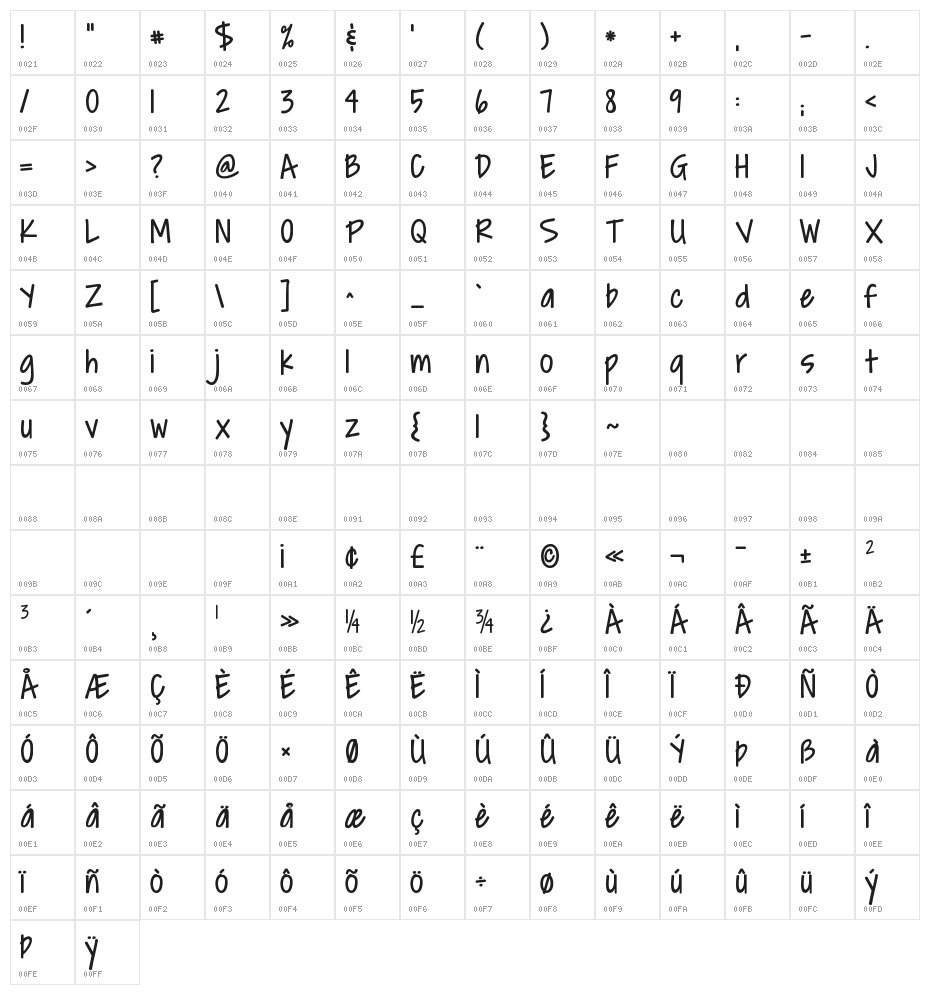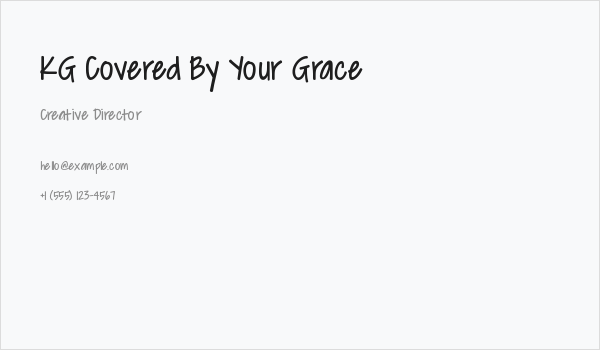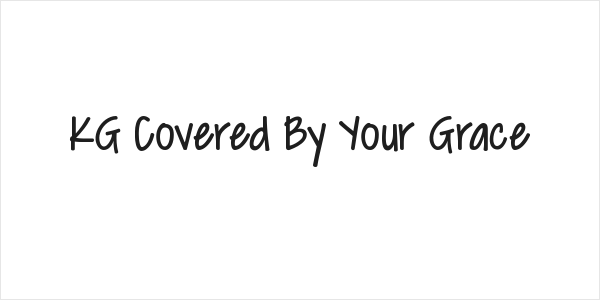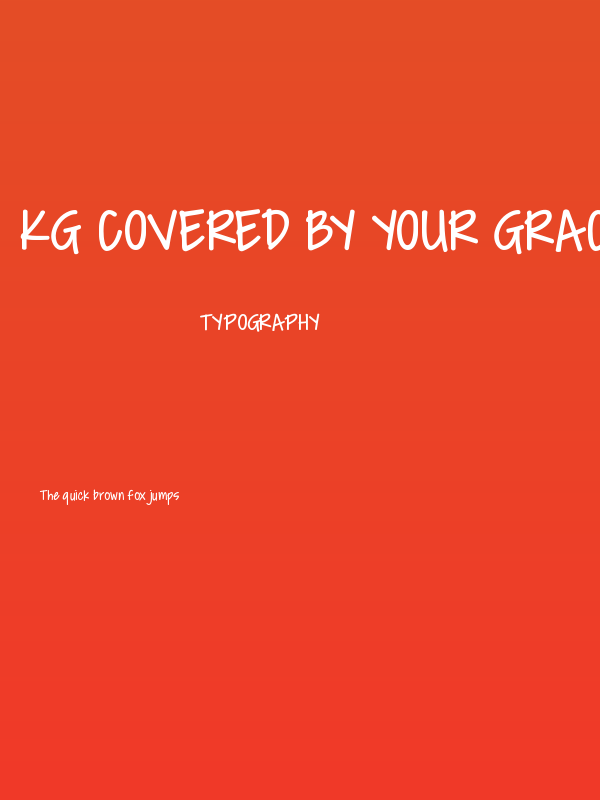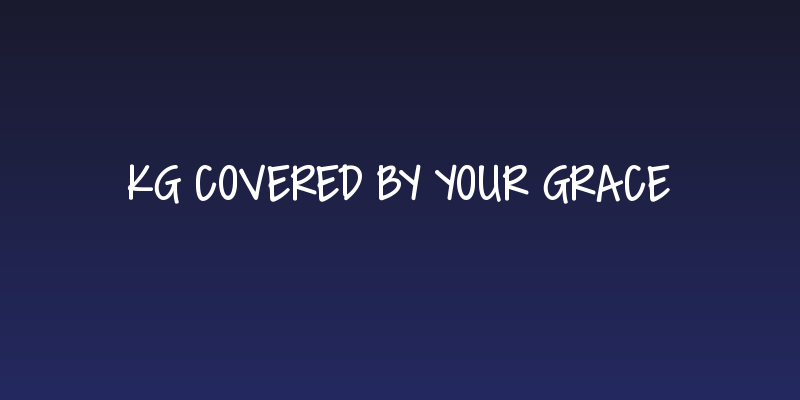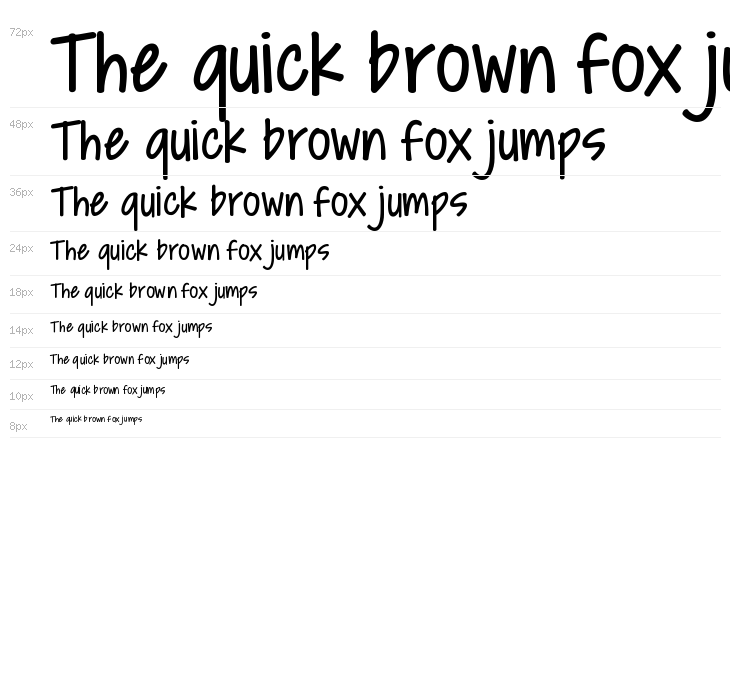
KG Covered By Your Grace Font
KG Covered By Your Grace Description
This font features a playful and informal handwritten style, characterized by its smooth, rounded strokes and slightly irregular letterforms. It exudes a casual and friendly vibe, making it ideal for projects that require a personal touch. The uppercase and lowercase letters maintain a consistent flow, while the numerals and special characters complement the overall aesthetic. The font's design is approachable and versatile, suitable for a variety of creative applications.
Overall StyleCasual
Use CaseHeadlines, Informal text, Creative projects
Proposed ProjectsIdeal for greeting cards, children's books, personal blogs, and informal branding.